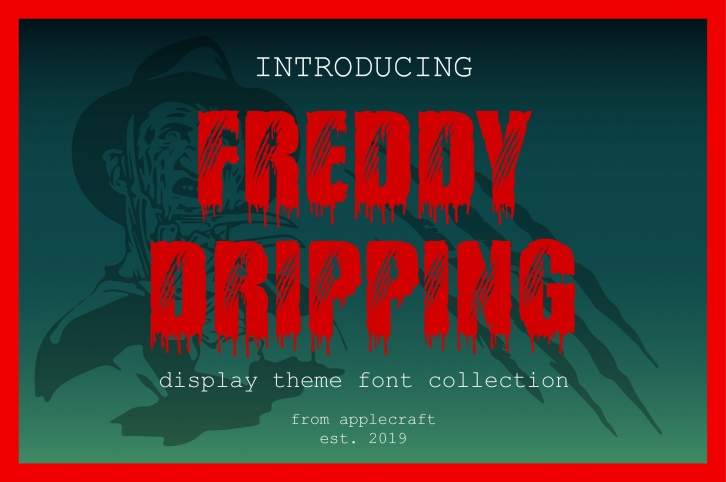
Freddy Dripping is a unique horror font with a blood-like melt in every letter.
The capital/lowercase letters are the same.
Capital Letters: Solid
This font is perfect for Halloween projects, movie titles, logos, book covers, horror stories, and more.!
Most accent characters included.